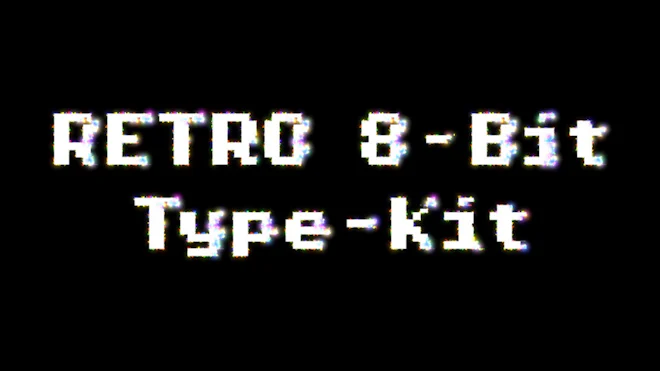
This stock motion graphics video pack includes 82 different clips of retro 8-bit pixel typefaces on a black background. The pack Includes 26 uppercase letters, 26 lowercase letters, 10 numbers, and 20 symbols.